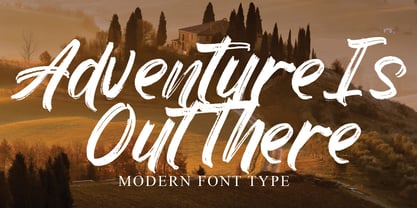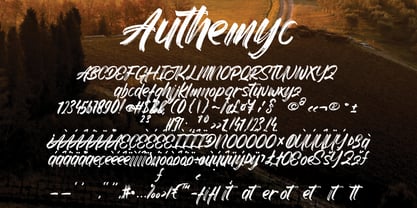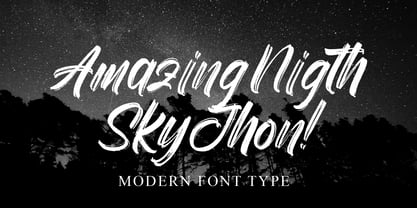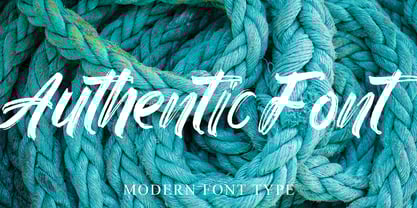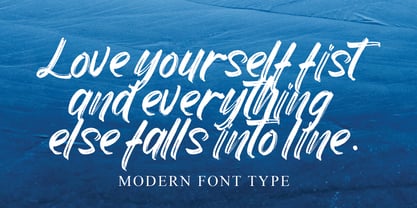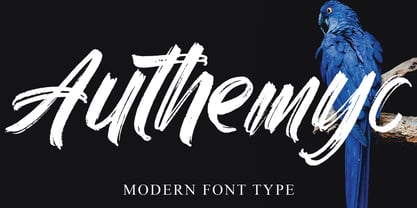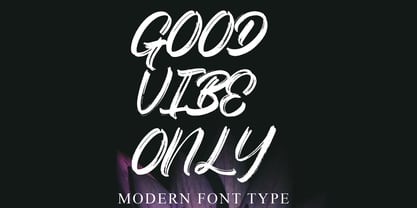
Authemyc
by Naatypo
The Authemyc Font Family was designed by Kurnia Elis Setyorini and published by Naatypo. Authemyc contains 1 styles. More about this family
Introducing Authemyc, the paragon of modern elegance seamlessly fused into a handwritten font. A beacon of class and affluence, Authemyc is a charismatic adornment, endowing your designs with a tender allure. Infused with a hint of edginess, this curvy, casual font pays tribute to the genuine tempo of natural brush calligraphy. The unique texture, suggestive of a brush's gentle contact, is the captivating crowning grace of Authemyc. It stands as the perfect selection for impactful messaging and unforgettable branding.
Designers: Kurnia Elis Setyorini
Foundry: Naatypo